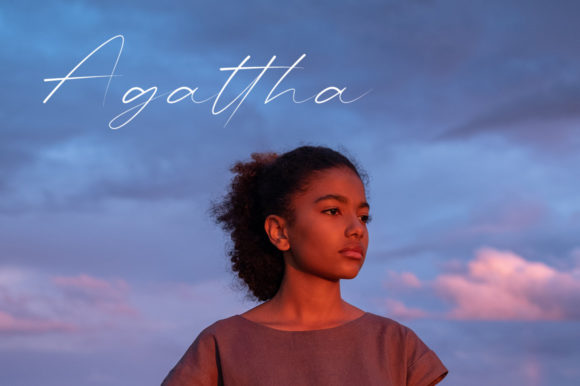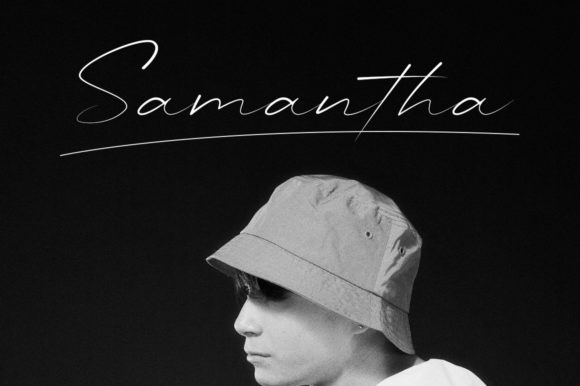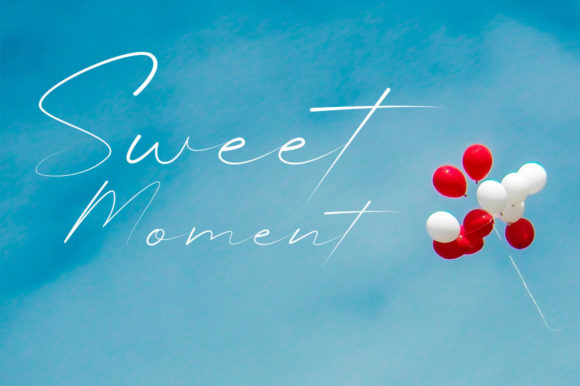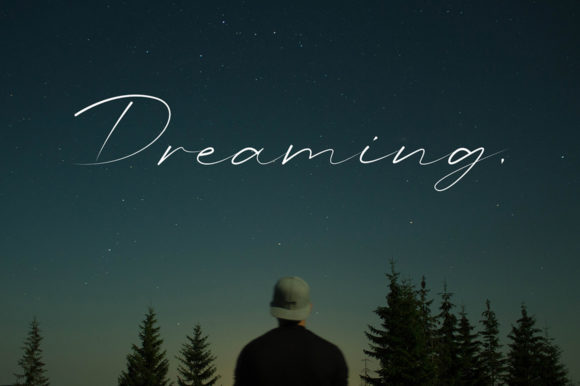
Dietra Font: The Elegant and Delicate Handwritten Font for Your Creative Projects
Are you looking for a font that adds a touch of elegance and sophistication to your creative projects? Look no further than Dietra Font, a naturally flowing, soft, and delicate handwritten font that is perfect for a variety of applications. In this article, we’ll take a closer look at the features and benefits of Dietra Font, and explore how it can be used to elevate your designs.
What is Dietra Font?
Dietra Font is a beautiful, handwritten font that is crafted with character and an elegant touch. Its soft and delicate strokes make it perfect for projects that require a subtle and sophisticated look. Whether you’re working on a album name, photography project, quote, or any other creative endeavor, Dietra Font is sure to add a touch of class and refinement.
Key Features of Dietra Font
So, what makes Dietra Font so special? Here are just a few of its key features:
- Naturally Flowing: Dietra Font has a natural, handwritten feel that makes it perfect for projects that require a personal touch.
- Soft and Delicate: The font’s soft and delicate strokes make it ideal for projects that require a subtle and sophisticated look.
- Elegant Touch: Dietra Font is crafted with an elegant touch that adds a touch of refinement to any project.
- Handwritten: The font’s handwritten feel makes it perfect for projects that require a personal and creative touch.
Uses for Dietra Font
Dietra Font is a versatile font that can be used for a variety of creative projects. Here are just a few ideas to get you started:
- Album Names: Add a touch of elegance to your album names with Dietra Font.
- Photography: Use Dietra Font to add a subtle and sophisticated touch to your photography projects.
- Quotes: Make your quotes stand out with the elegant and delicate strokes of Dietra Font.
- Branding: Use Dietra Font to add a touch of refinement to your brand’s identity.
- Packaging: Add a touch of elegance to your packaging with Dietra Font.
Why Choose Dietra Font?
So, why should you choose Dietra Font for your creative projects? Here are just a few reasons:
- Unique and Creative: Dietra Font is a unique and creative font that will help your projects stand out from the crowd.
- Elegant and Refined: The font’s elegant and refined strokes make it perfect for projects that require a sophisticated look.
- Easy to Read: Dietra Font is easy to read, making it perfect for projects that require a clear and concise message.
- Versatile: The font’s versatility makes it perfect for a variety of creative projects.
Tips for Using Dietra Font
Here are a few tips for using Dietra Font in your creative projects:
- Use it sparingly: Dietra Font is a elegant and refined font, so use it sparingly to add a touch of sophistication to your projects.
- Pair it with other fonts: Experiment with pairing Dietra Font with other fonts to create a unique and creative look.
- Adjust the size: Adjust the size of Dietra Font to create a clear and concise message.
In conclusion, Dietra Font is a beautiful, handwritten font that is perfect for creative projects that require a soft and stunning touch. Its elegant and refined strokes make it ideal for a variety of applications, from album names to branding and packaging. With its unique and creative feel, Dietra Font is sure to add a touch of sophistication to any project. So why not give it a try and see how it can elevate your designs?